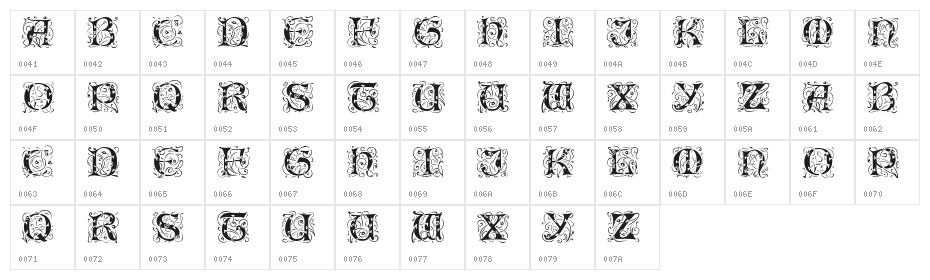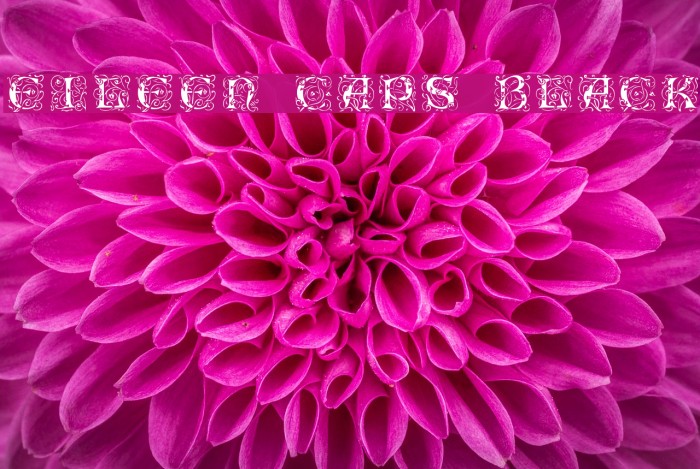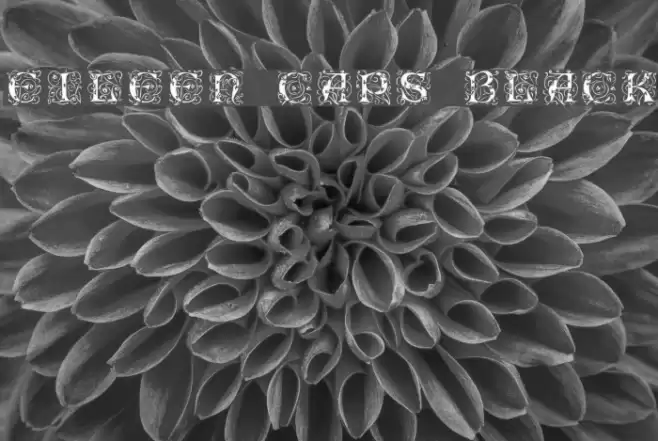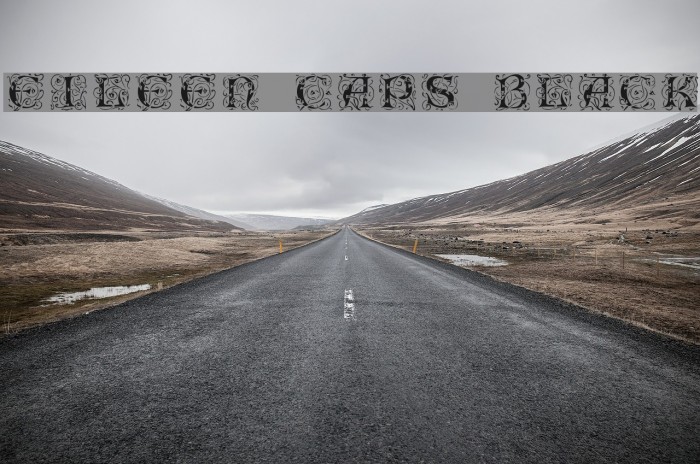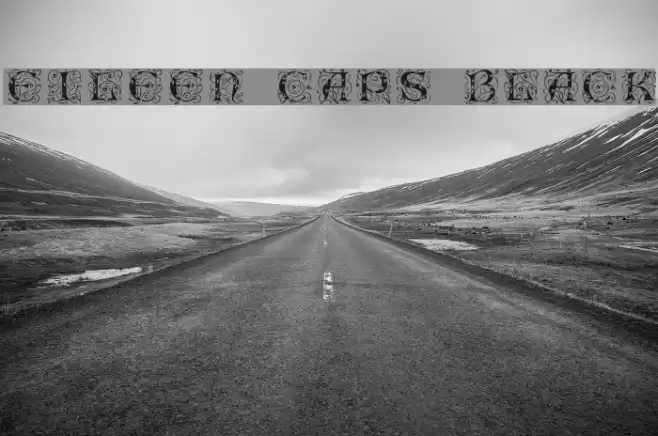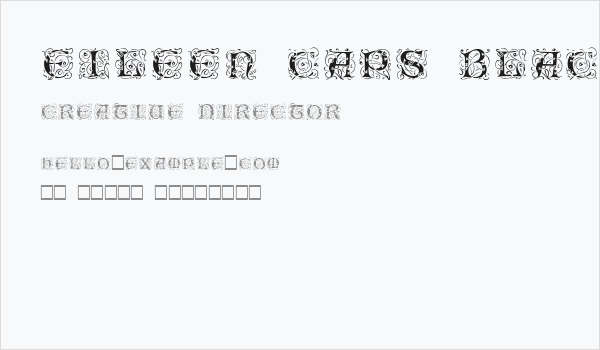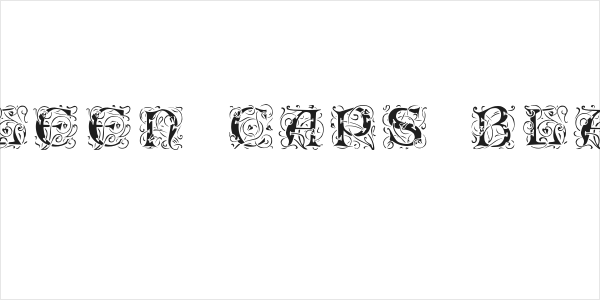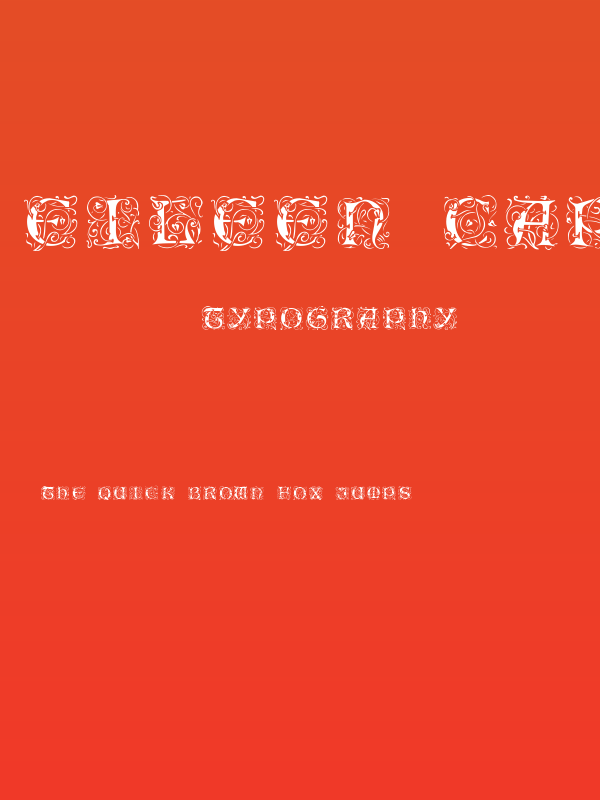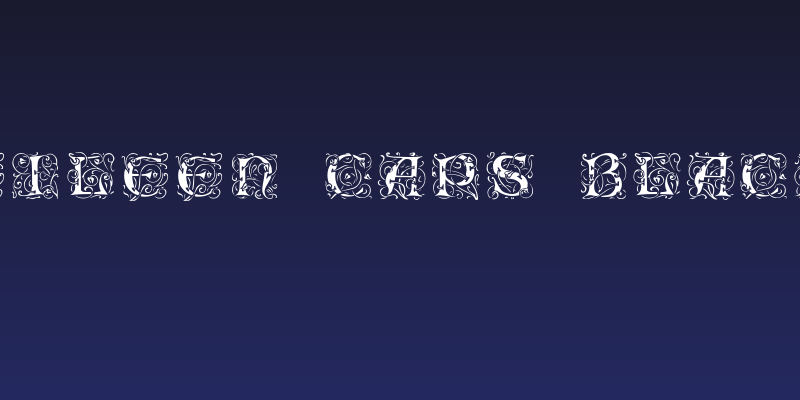
Eileen Caps Black Font
Eileen Caps Black Description
This font is a highly decorative and ornate typeface characterized by intricate floral and swirl embellishments surrounding each letter. The uppercase letters are bold and prominent, with each character enveloped in elaborate designs that give it a vintage and artistic flair. The font lacks lowercase letters and numbers, focusing solely on uppercase characters, making it ideal for creating striking headlines or titles. The detailed ornamentation suggests a historical or classical influence, reminiscent of Victorian or Baroque styles. Its unique and eye-catching appearance makes it suitable for projects that require a touch of elegance and sophistication.
| Proposed Projects | Ideal for wedding invitations, vintage-themed posters, book covers, and decorative signage. |